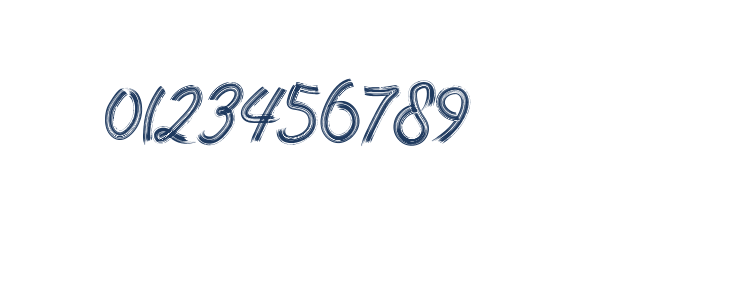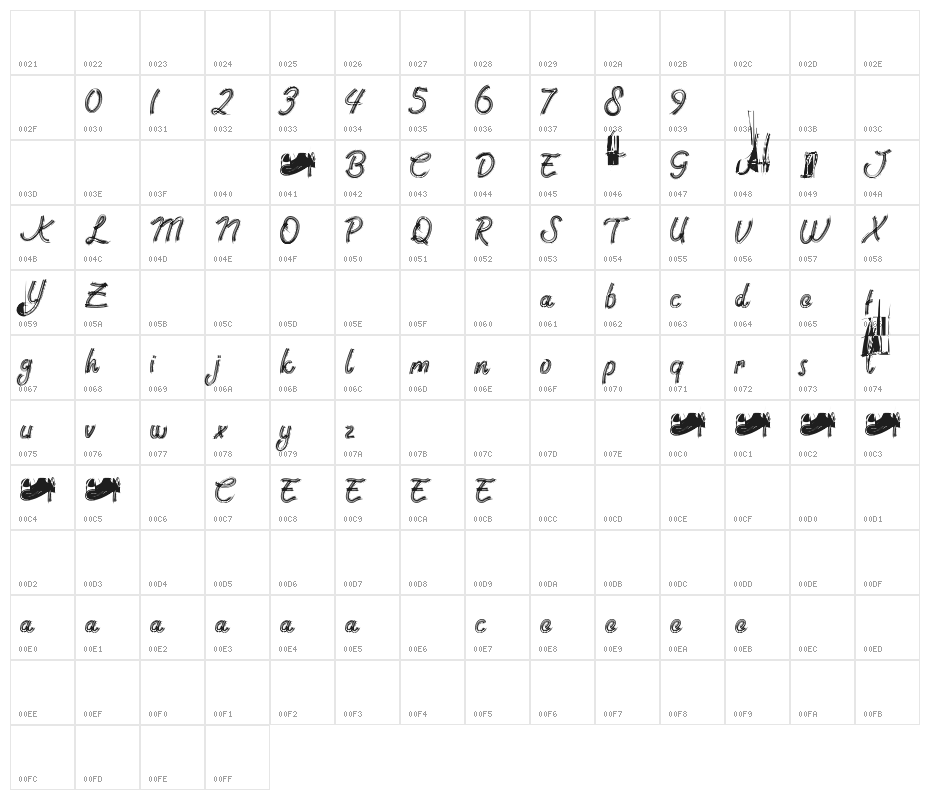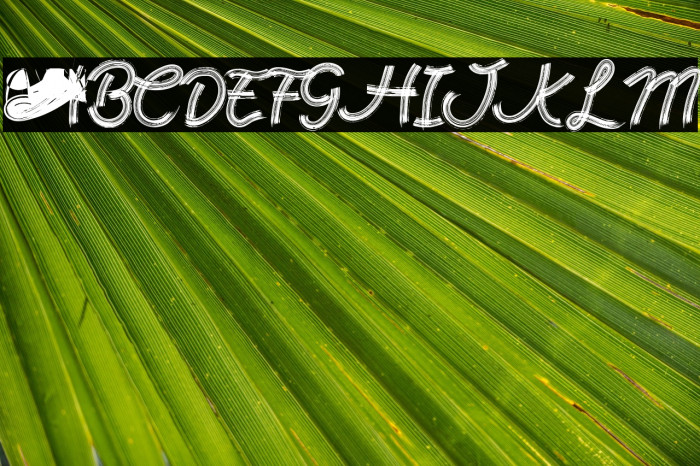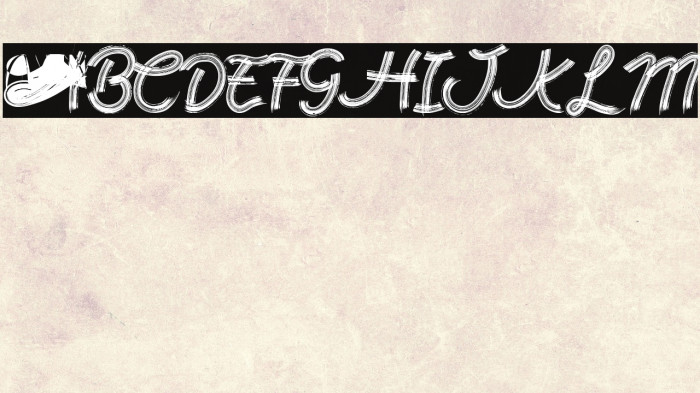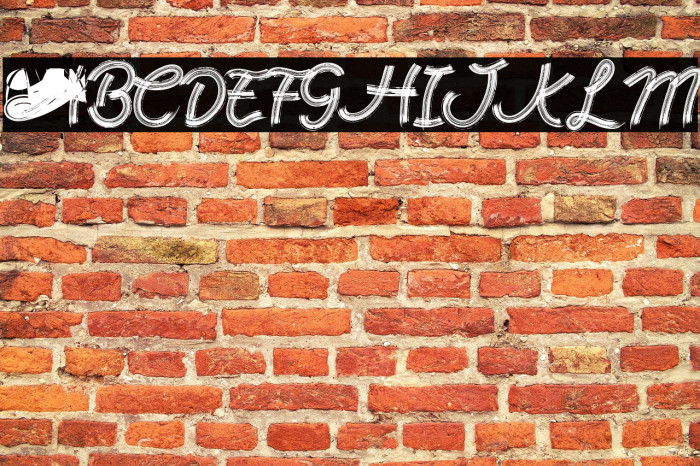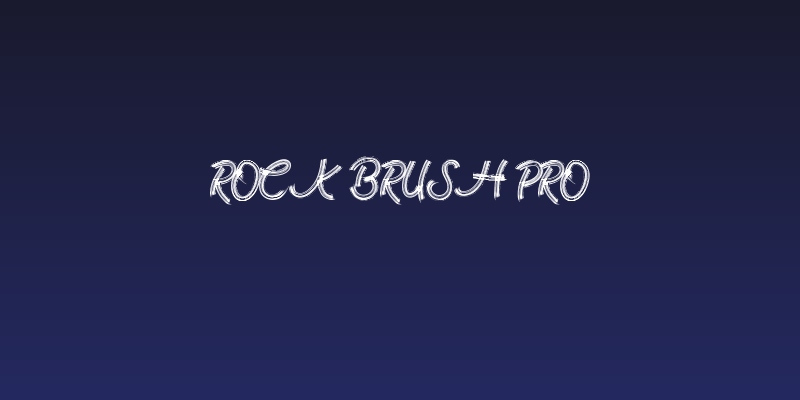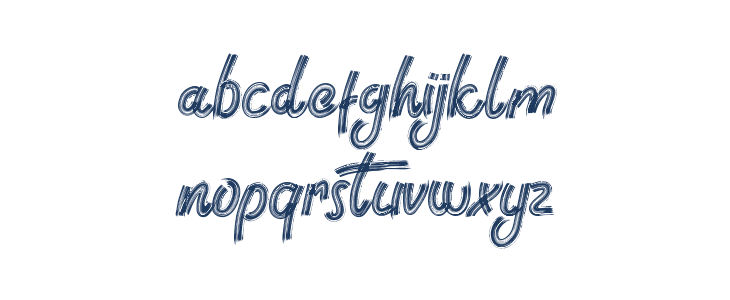
Rock Brush Pro Font
Rock Brush Pro Description
This font exudes a dynamic and energetic vibe, characterized by its brush-like strokes that give it a hand-painted appearance. The letters are crafted with a sense of motion, featuring uneven edges and varying thickness that add to its artistic flair. The uppercase and lowercase letters maintain a consistent style, with a playful yet sophisticated look. The numbers and special characters follow the same brush-stroke theme, ensuring a cohesive design throughout. This font is perfect for projects that require a bold and creative touch, making it ideal for artistic and expressive designs.
| Overall Style | Artistic, Energetic, Creative |
| Use Case | Headlines, Logos, Artistic Projects |
| Proposed Projects | Ideal for posters, album covers, artistic branding, and creative social media graphics. |